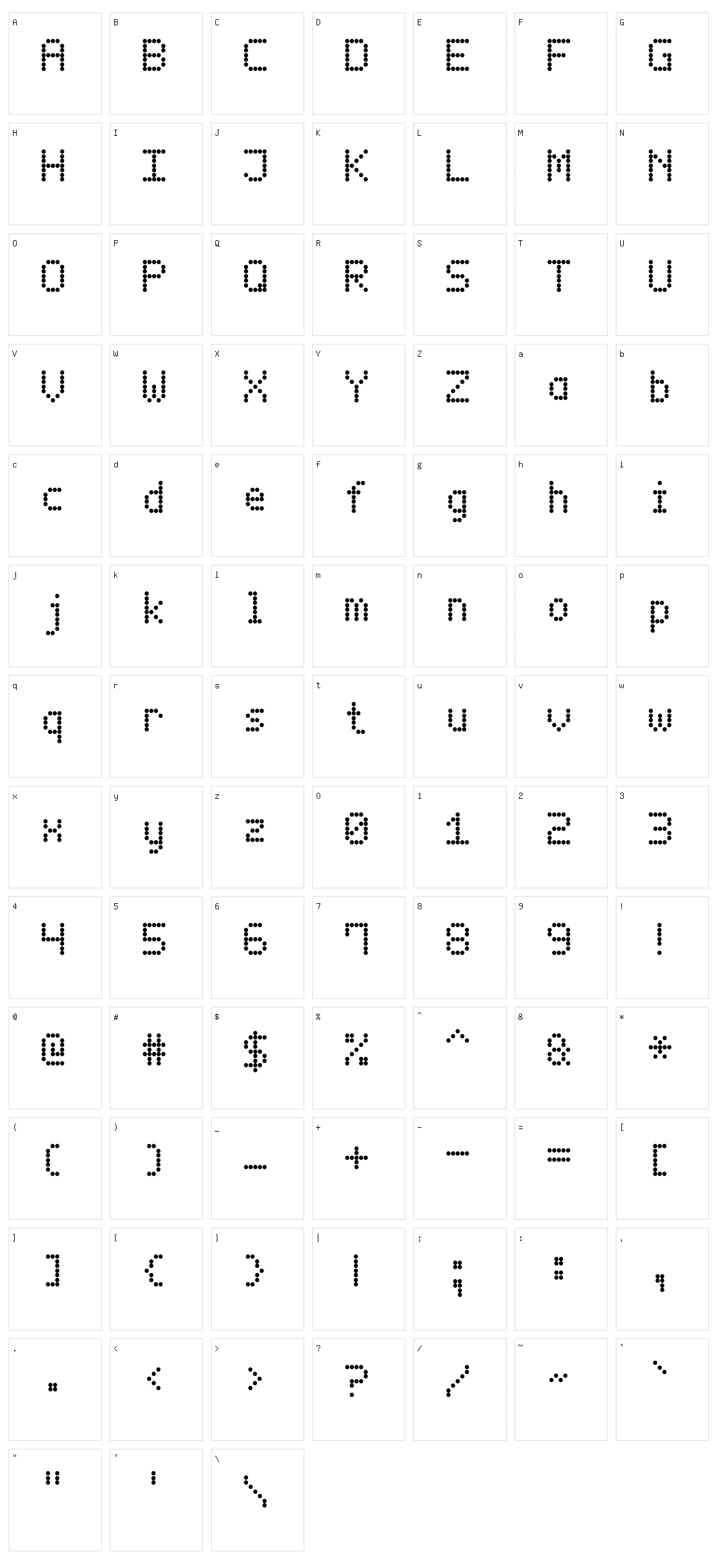
LED Counter 7
Designed by: Style-7
Category: LCD & Futuristic
This is original font like LED (Light Emitting Diode) matrix 5*7 units. Latin 1 and Cyrillic code pages are supported.